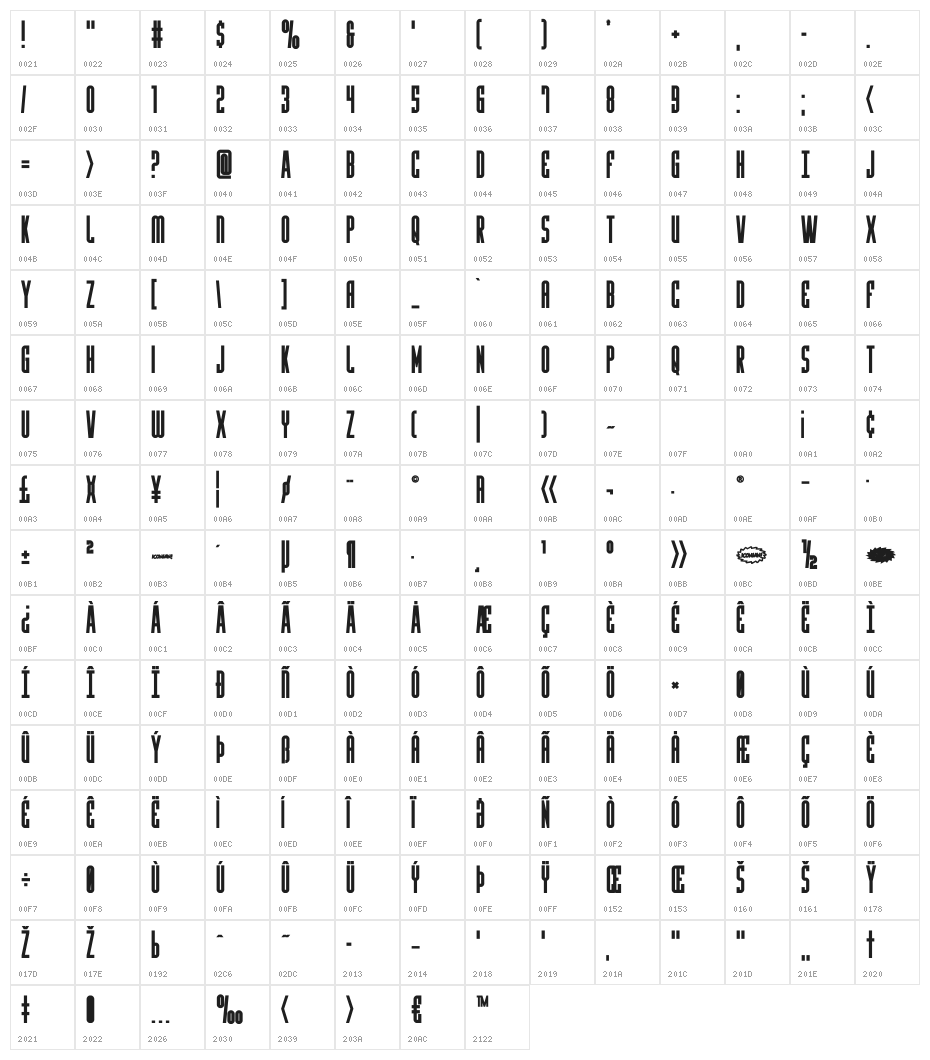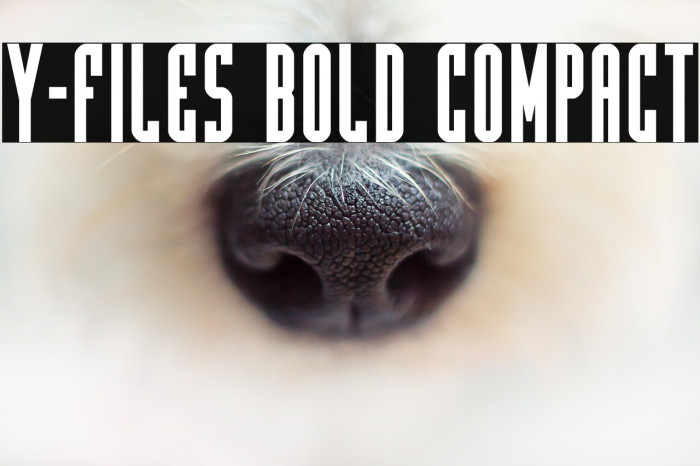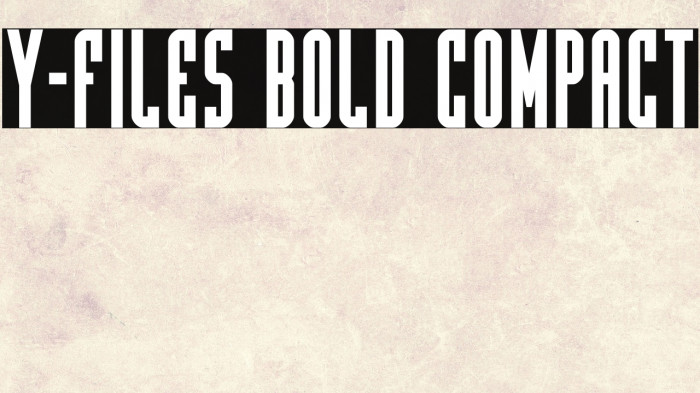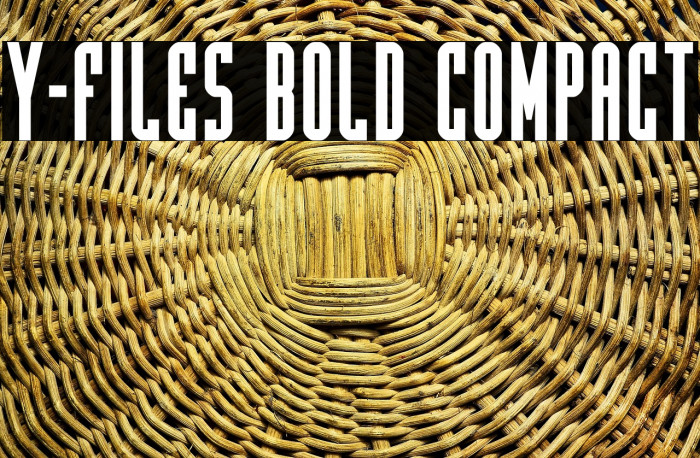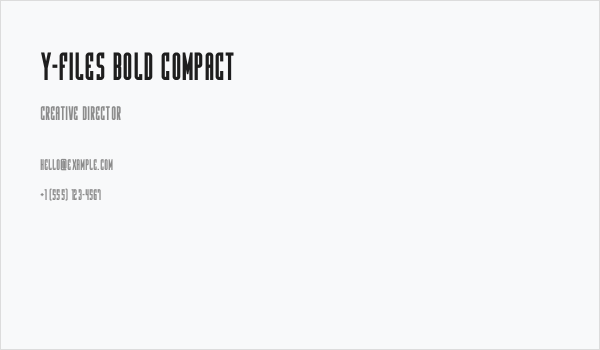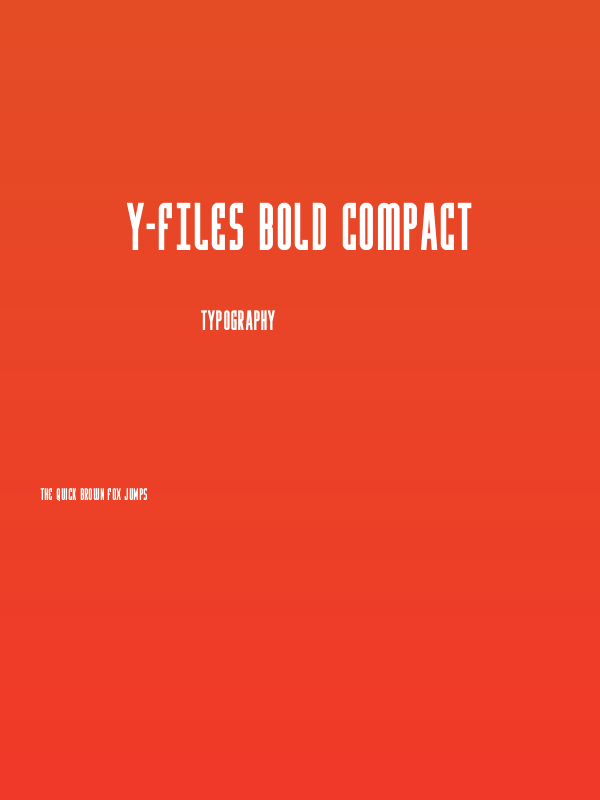
Y-Files Bold Compact Font
Y-Files Bold Compact Description
This font features a bold and compact design with a strong presence. The characters are tall and narrow, giving it a condensed appearance. The strokes are thick and uniform, providing a consistent and powerful look. The uppercase letters dominate the design, with a geometric and structured form that enhances readability. The numbers and special characters maintain the same boldness, ensuring a cohesive style throughout. This font is ideal for making a strong visual impact, suitable for headlines and titles that require attention.
| Proposed Projects | Ideal for posters, headlines, branding, and any project needing a strong visual impact. |